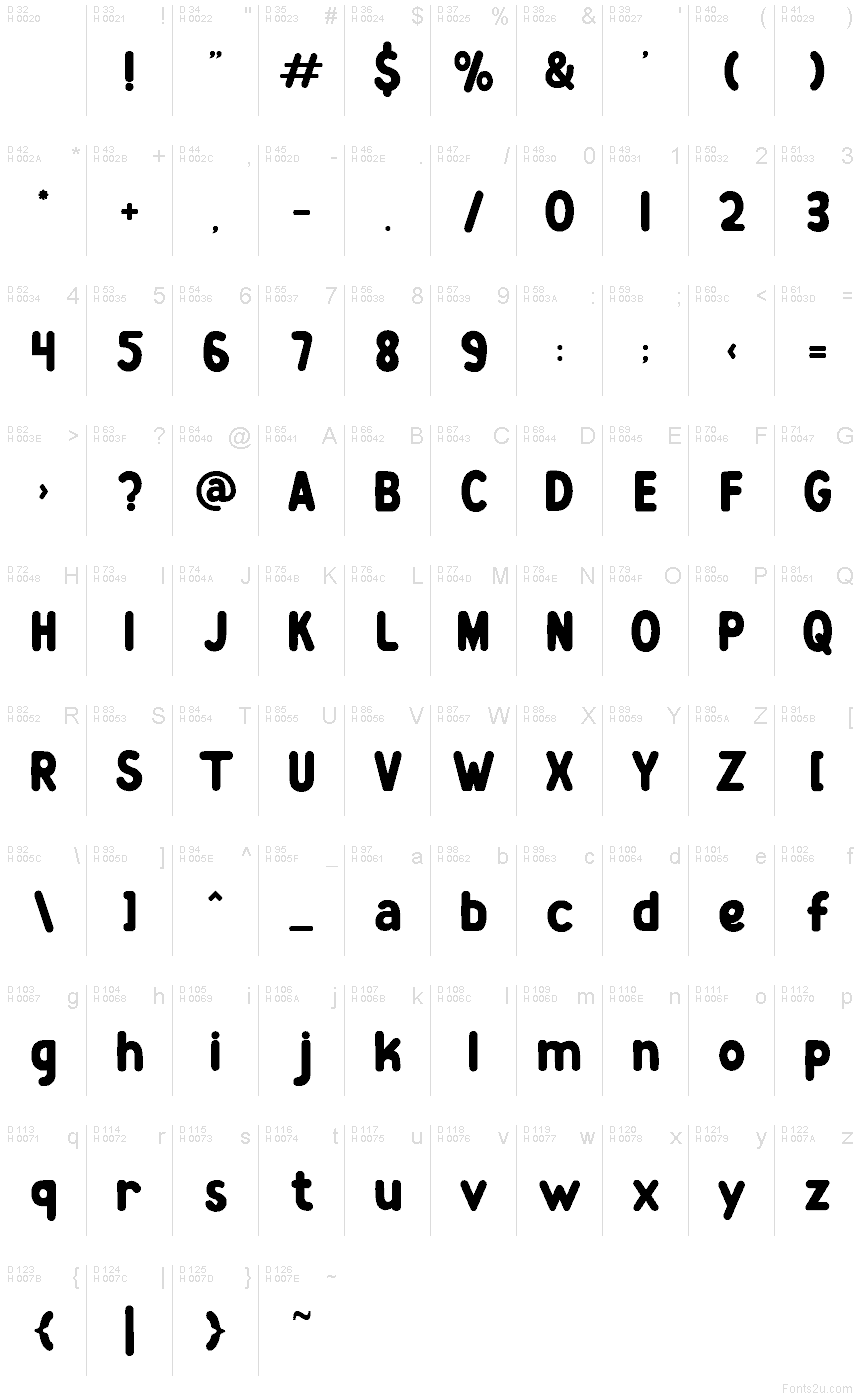
Zany Route
Zany Route font by PutraCetol Studio is a decorative display font that features rounded, friendly, and youthful characters. The free font has an approachable modern casual style which makes it great for use in contemporary design. Create amazing text-based graphics with this awesome collection of fun letters.